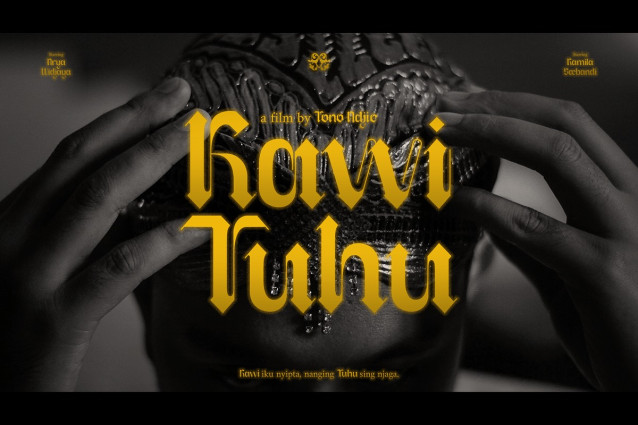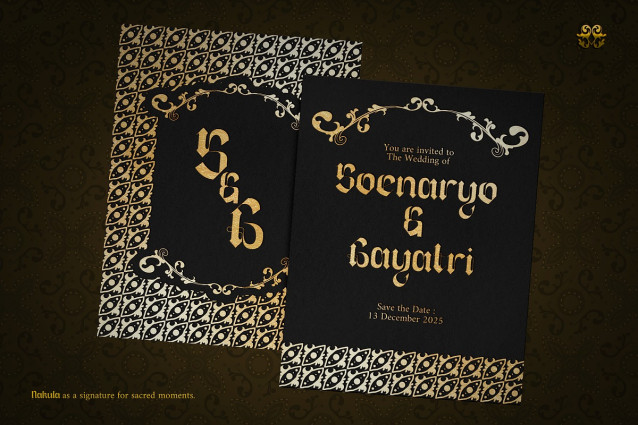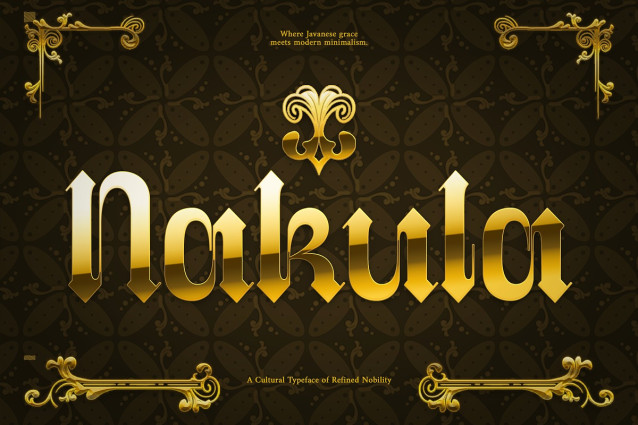
Nakula Blackletter Font
Nakula Blackletter Font is a refined blackletter typeface that fuses Javanese grace with gothic strength. Inspired by royal scripts, batik patterns, and keraton elegance, Nakula represents power, culture, and visual prestige in one commanding form.
Its sharp edges and ornate details bring a noble presence to any creative work—from cultural branding to ceremonial posters. Whether used for titles, logos, or decorative packaging, Nakula gives your typography a majestic and heritage-driven character.